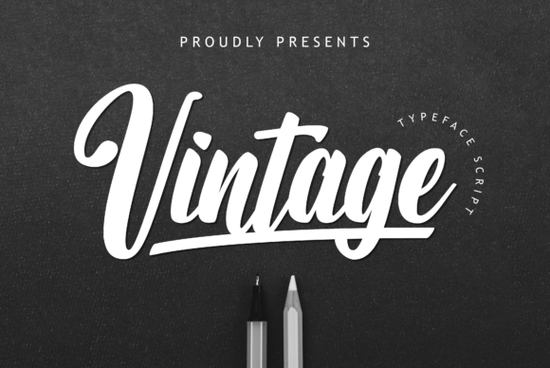
If you're looking for a script font that brings timeless charm to your designs, Vintage Font is a strong choice. It’s a cursive typeface with a polished, professional feel perfect for projects where elegance and personality matter. Whether you’re designing logos, crafting custom apparel, or creating eye-catching headlines, this font adds a refined touch without overwhelming your layout.
What makes Vintage Font stand out?
Unlike many script fonts that feel overly ornate or inconsistent, Vintage Font was designed with care. Each letter flows smoothly, maintaining even spacing and clear legibility even at smaller sizes. The strokes are clean and intentional, which helps your message stay readable while still feeling artistic.
It works well in both digital and print formats, making it ideal for small businesses, crafters, and print-on-demand sellers. You can use it for wedding invitations, boutique branding, tote bags, mugs, T-shirts, and more. Its versatility means you won’t need multiple fonts just to cover different uses.
Where can I use Vintage Font?
- Logos & Branding: Give your brand a classic yet modern look with a handwritten-style signature.
- Apparel & Merchandise: Perfect for tees, hats, and accessories where personal style matters.
- Headlines & Titles: Use it to draw attention without distracting from the main content.
- Craft Projects: Great for scrapbooking, greeting cards, and handmade gifts.
You’ll find it especially useful when pairing with simpler sans-serif fonts. For example, using Vintage Font for a headline and a clean, neutral font for body text creates balance and clarity.
How does it compare to other script fonts?
While many script fonts lean toward either playful or dramatic styles, Vintage Font sits in a sweet spot elegant but not fussy. If you’ve tried fonts like Handmade, Dahlia, Malibu, Shadyspeed, or Oligeb, you’ll notice Vintage offers a more consistent and mature tone. These alternatives have their own unique vibes some bolder, some more casual but Vintage fits best when you want something classy and reliable.
Is it easy to use?
For beginners, it’s helpful to limit the amount of text in this font. Since it’s a script, using it for long paragraphs can make reading harder. Stick to short phrases, titles, or key messages to keep your design effective.
Final thoughts: Is Vintage Font right for your next project?
If you’re drawn to fonts that feel authentic and well-crafted without being trendy or flashy then yes, Vintage Font deserves a spot in your toolkit. It’s not the flashiest option out there, but it’s one of the most dependable for creative work that needs a little soul.
Each has its own character, but if you want something that feels timeless and professional, Vintage Font is a solid pick.